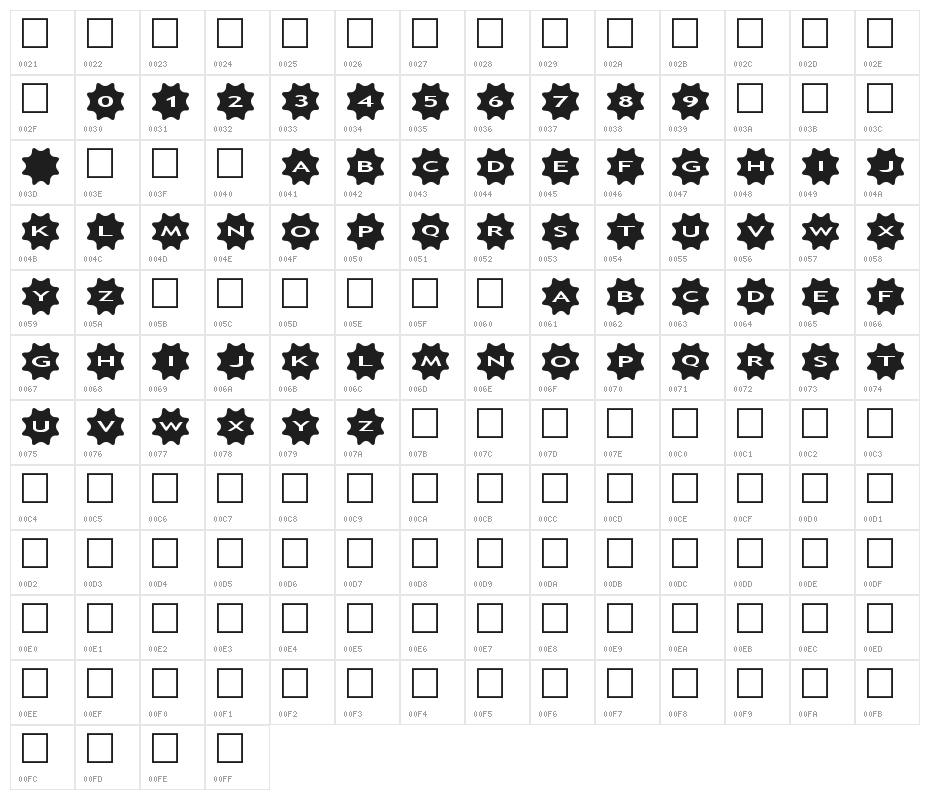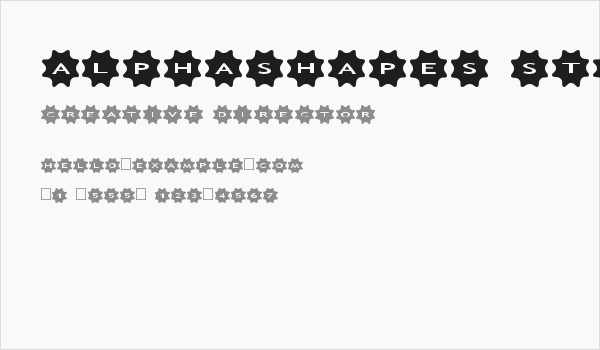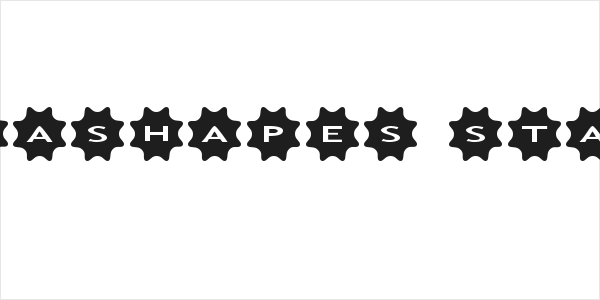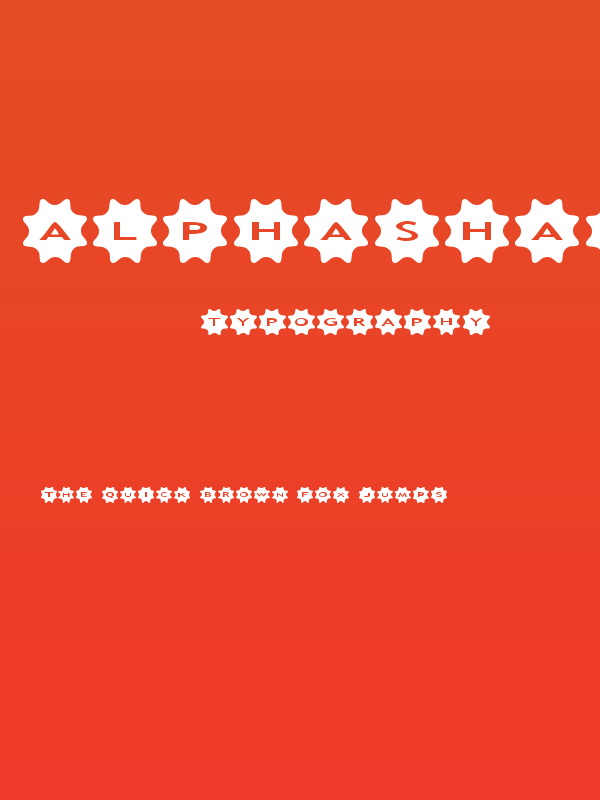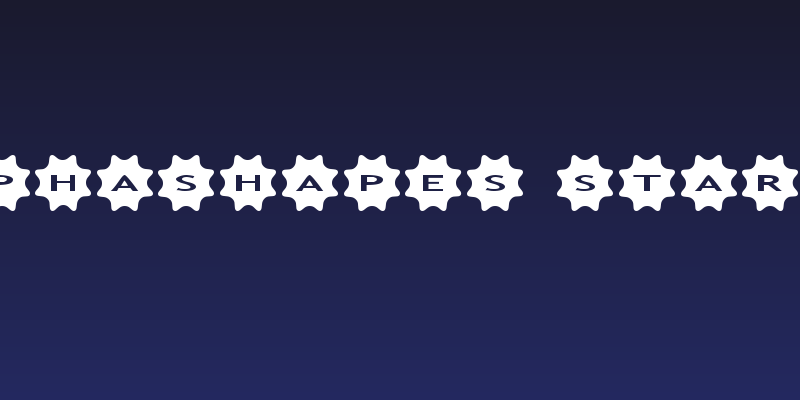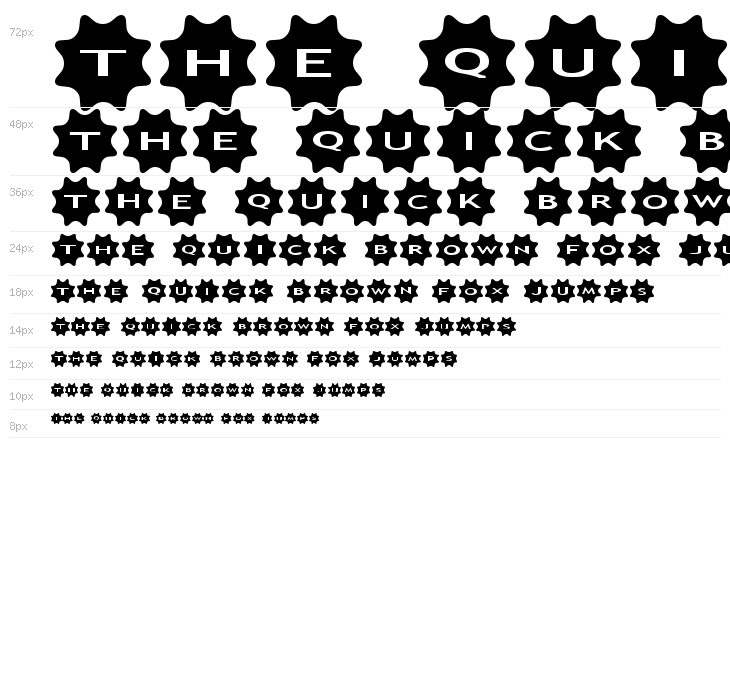
AlphaShapes stars 4 Font
AlphaShapes stars 4 Description
This decorative font features bold, uppercase letters and numbers encased within star-shaped outlines. Each character is centered within a star, creating a unique and playful appearance. The font is highly stylized, making it ideal for attention-grabbing designs. The uniformity of the star shapes provides a consistent visual theme, while the boldness of the characters ensures readability. This font does not include lowercase letters or special characters, focusing solely on uppercase letters and numbers.
| Overall Style | Playful, Decorative |
| Proposed Projects | Ideal for children's book covers, party invitations, festive banners, and playful branding projects. |